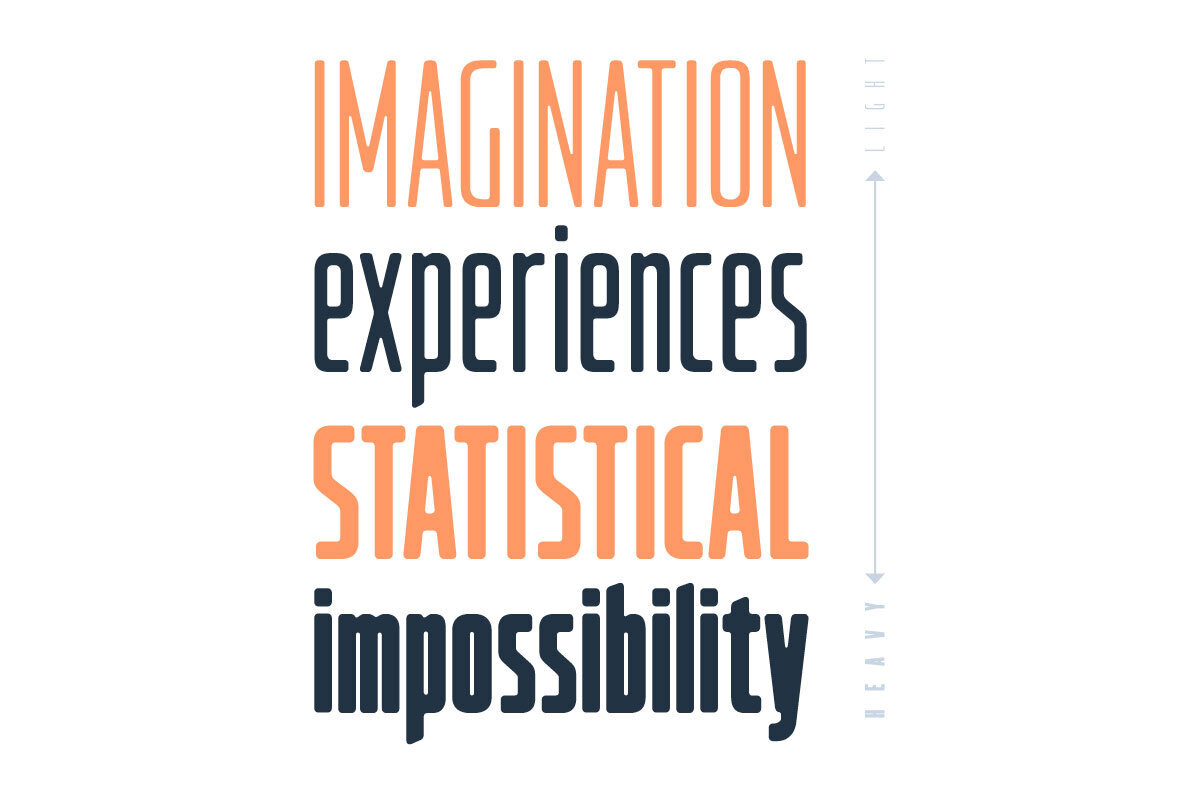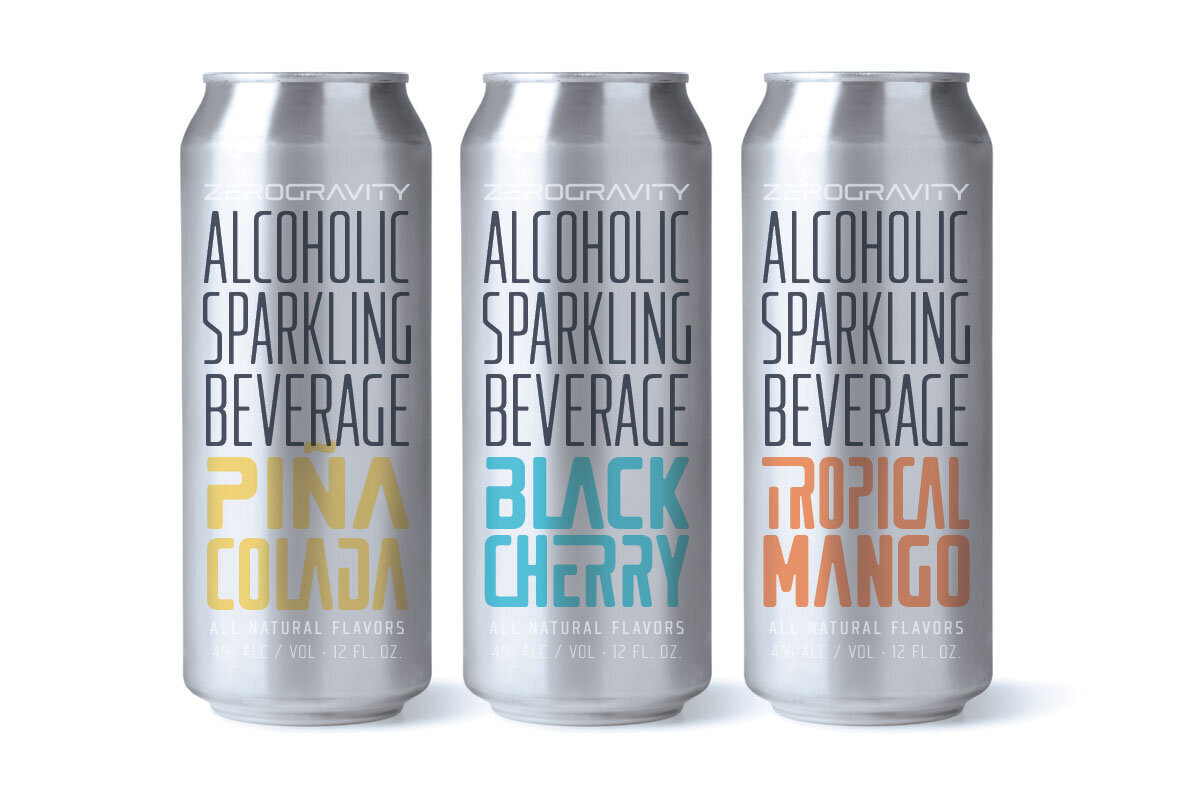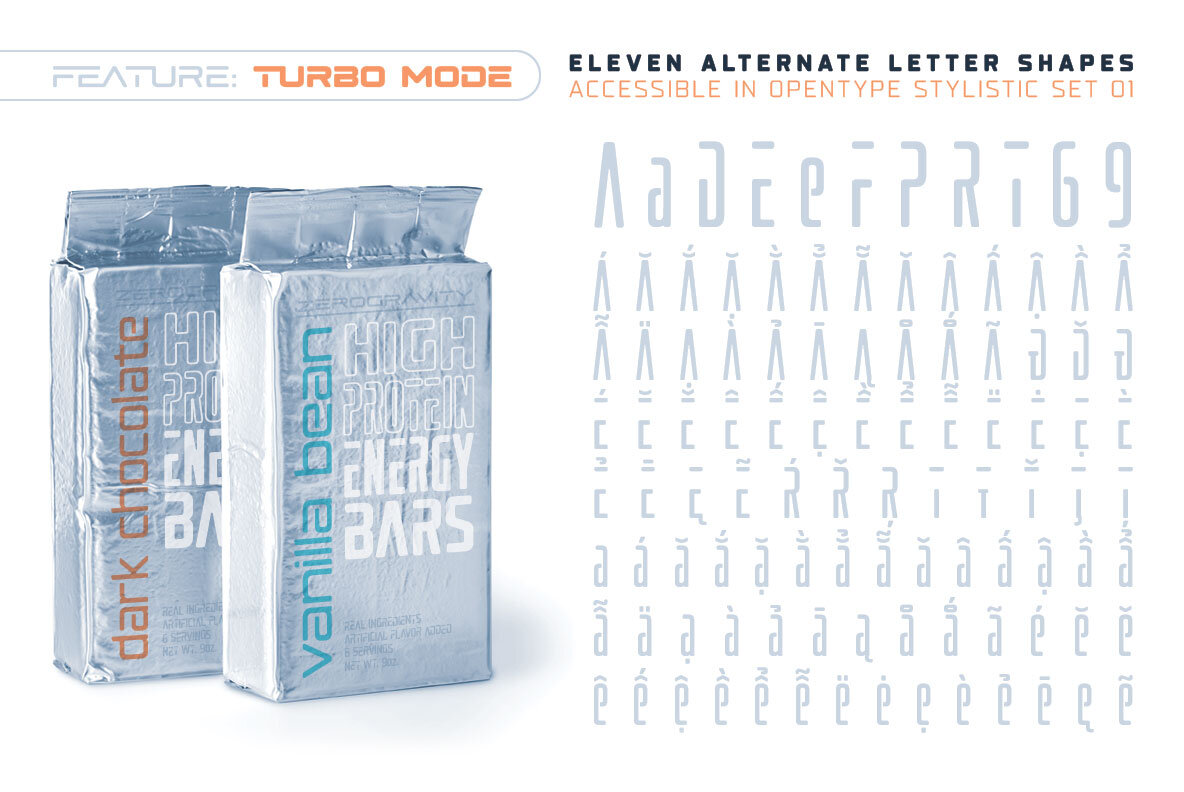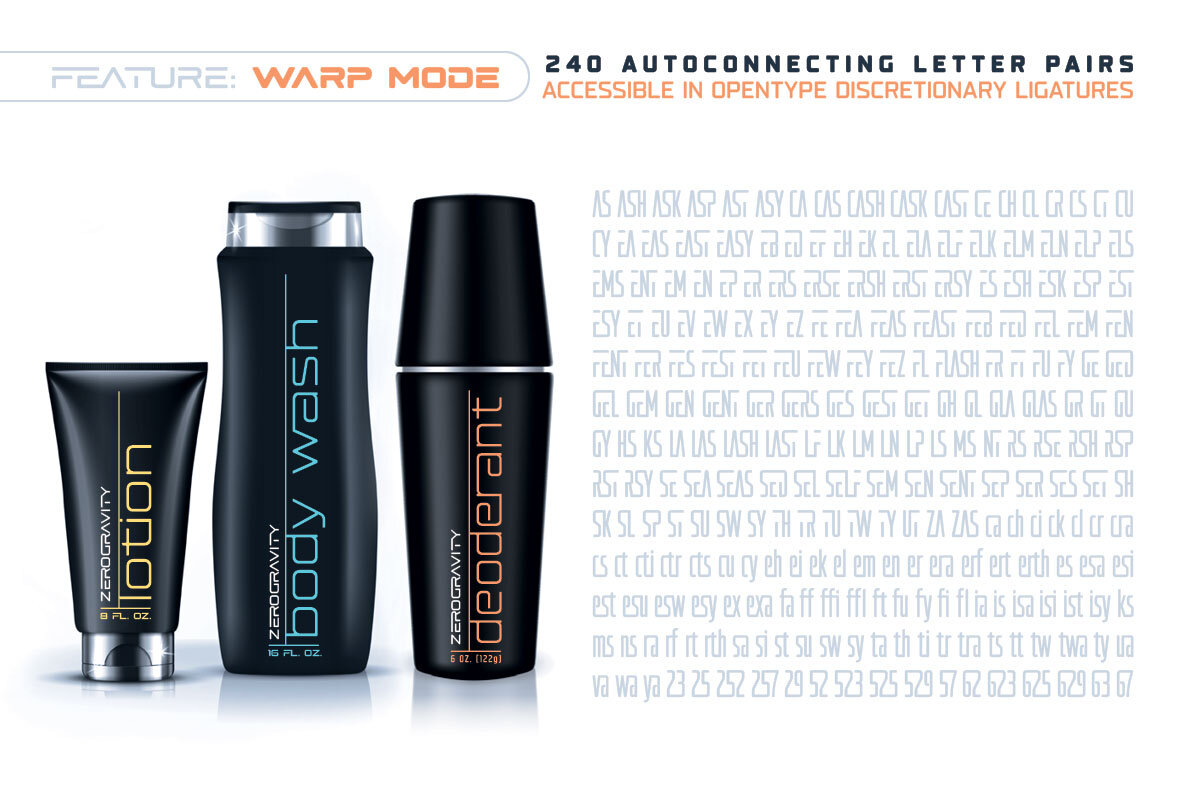
Hyperspace Race Capsule XTall Font
Welcome aboard the Hyperspace Race Capsule! Let the weight of gravity slip away as our interplanetary transport system takes you around the solar system in unparallelled style and comfort.
Our reclaimed UFO has been remodeled with soft, luxurious curves on the exterior and the latest cutting edge technology under the hood, to meet all your typographic travel desires.
Each weight and package includes these luxurious five-star amenities:
- Kick your Capsule into TURBO mode to access sleek, fast-moving alternate letter shapes.
- Hit WARP SPEED to cross time and space with hundreds of auto-connecting letter pairs.
- Chat with passengers from all over Earth, as Hyperspace Race Capsule effortlessly presents speech in 224 languages.
- Use the Variable font to access 20 preset weights plus over 100,000 options between.
Hyperspace Race Capsule is a versatile, full-featured font that's perfect for galaxy-wide branding projects, now and into the future.